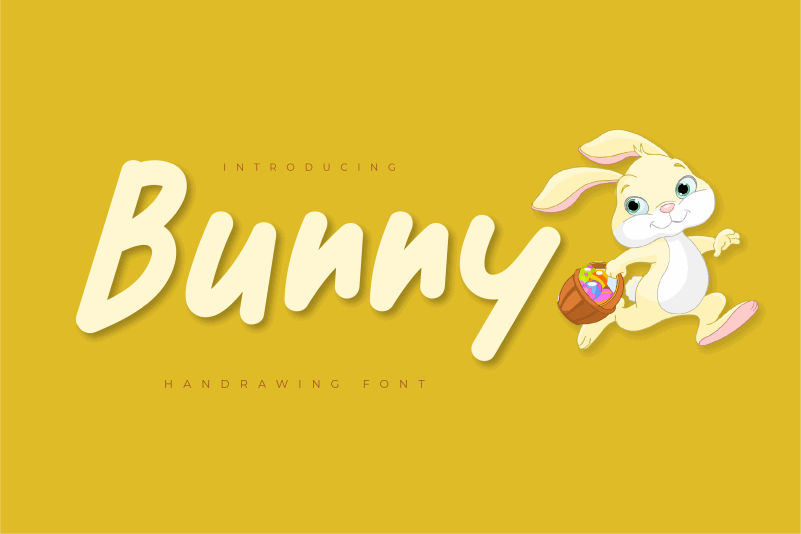
Bunny Display Font
Bunny Display Font is a cute and quirky display font. It will add an incredibly joyful touch to your designs. Add this beautiful display font to each of your creative ideas and notice how it makes them stand out!